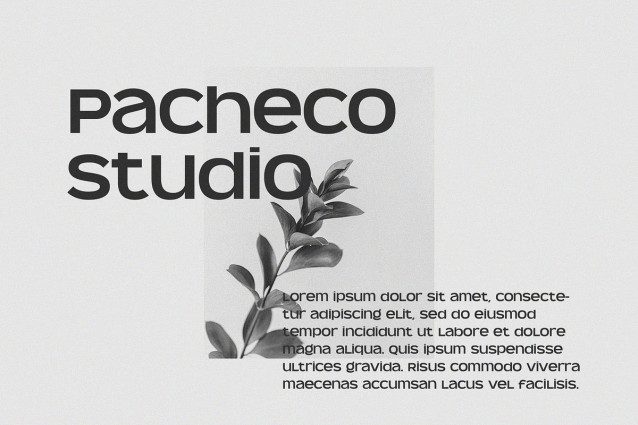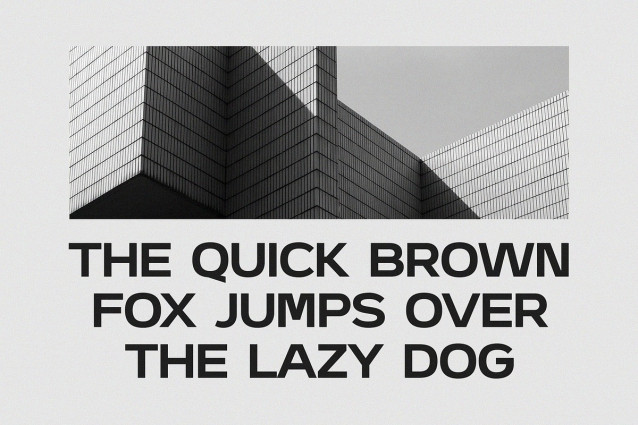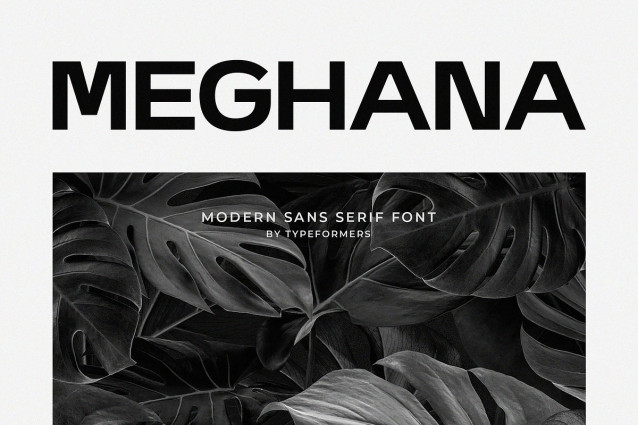
Meghana Font
Meghana Font – Modern Sans Serif, is a modern and simple font, best used as a display for headings, logos, branding, magazines, product packaging and invitations.